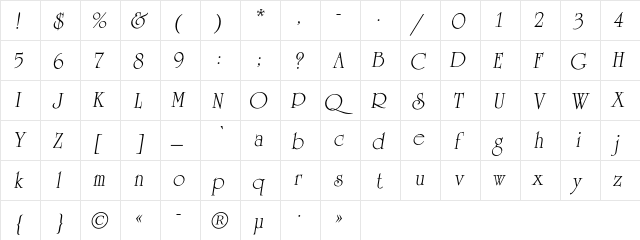
AGReverenceC Italic Font Preview
AGReverenceC Italic
AGReverenceC Italic Font Details
Design Context for AGReverenceC Typeface
AGReverenceC offers clean, dependable letterforms without strong stylistic allegiance, making it a practical choice for designers who need flexibility. The dynamic lean of this cut emphasises speed and emphasis in any layout.
Pro Tip: Use AGReverenceC for emphasis, pull quotes, and subheadings where its slanted energy can add rhythm to the layout.